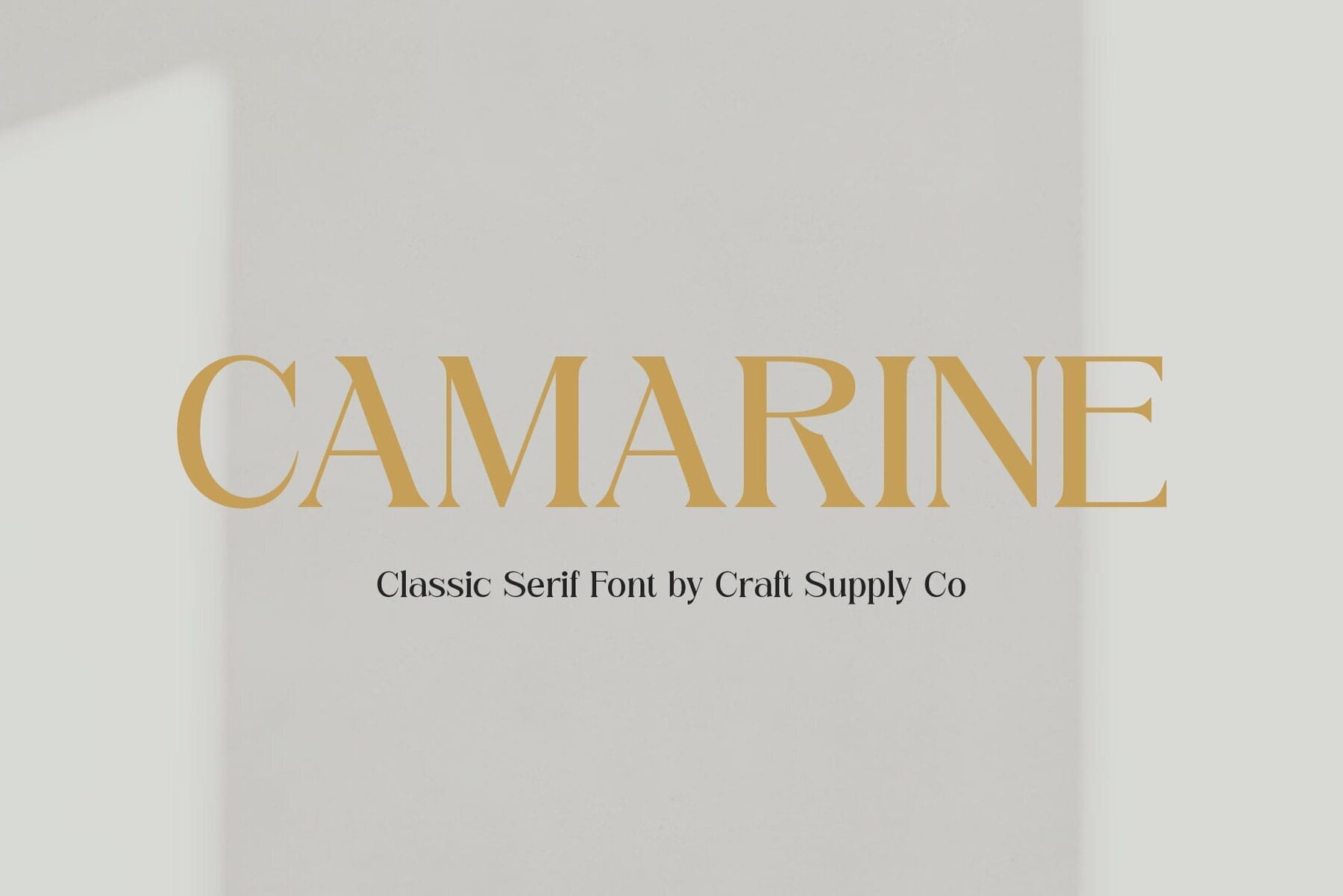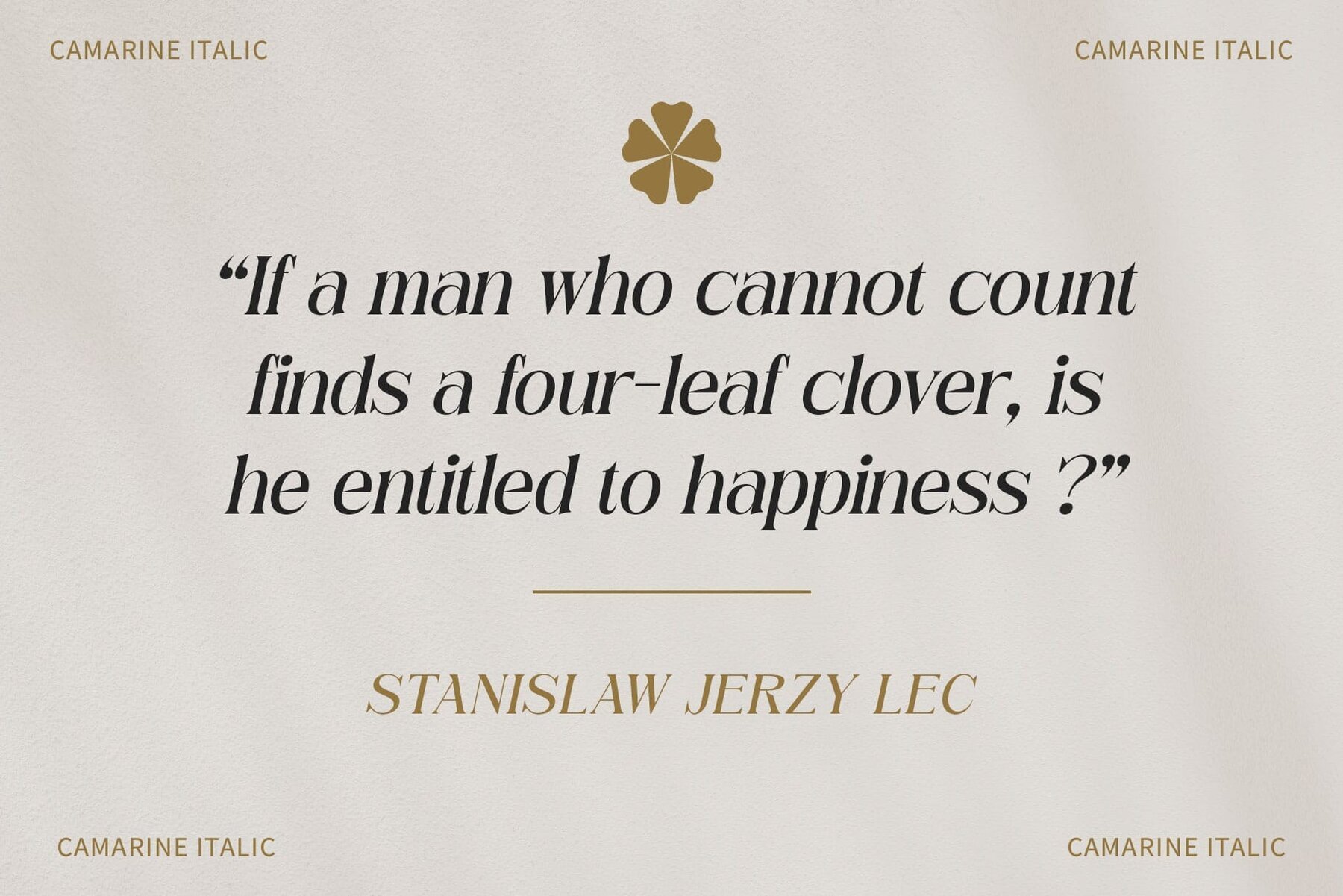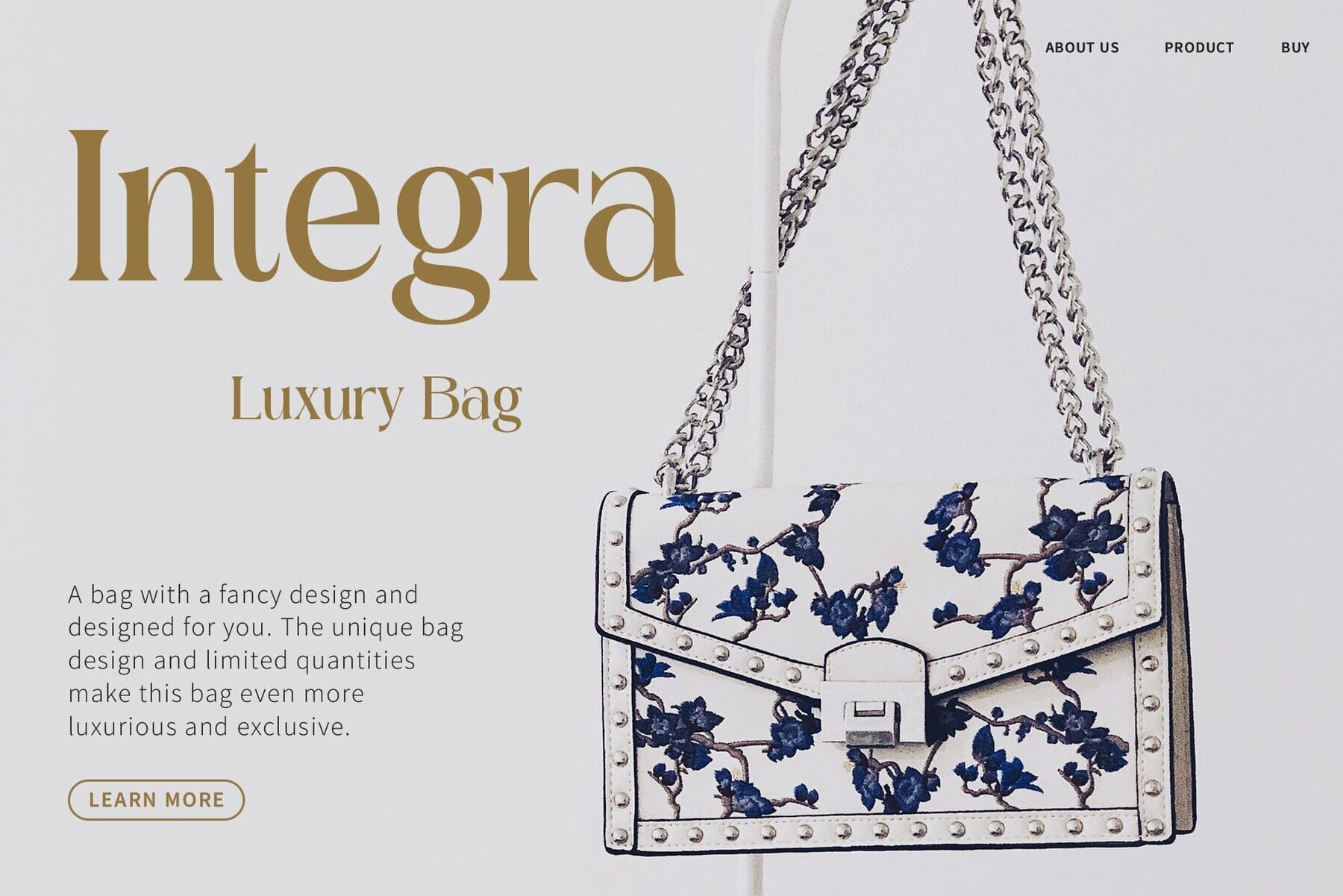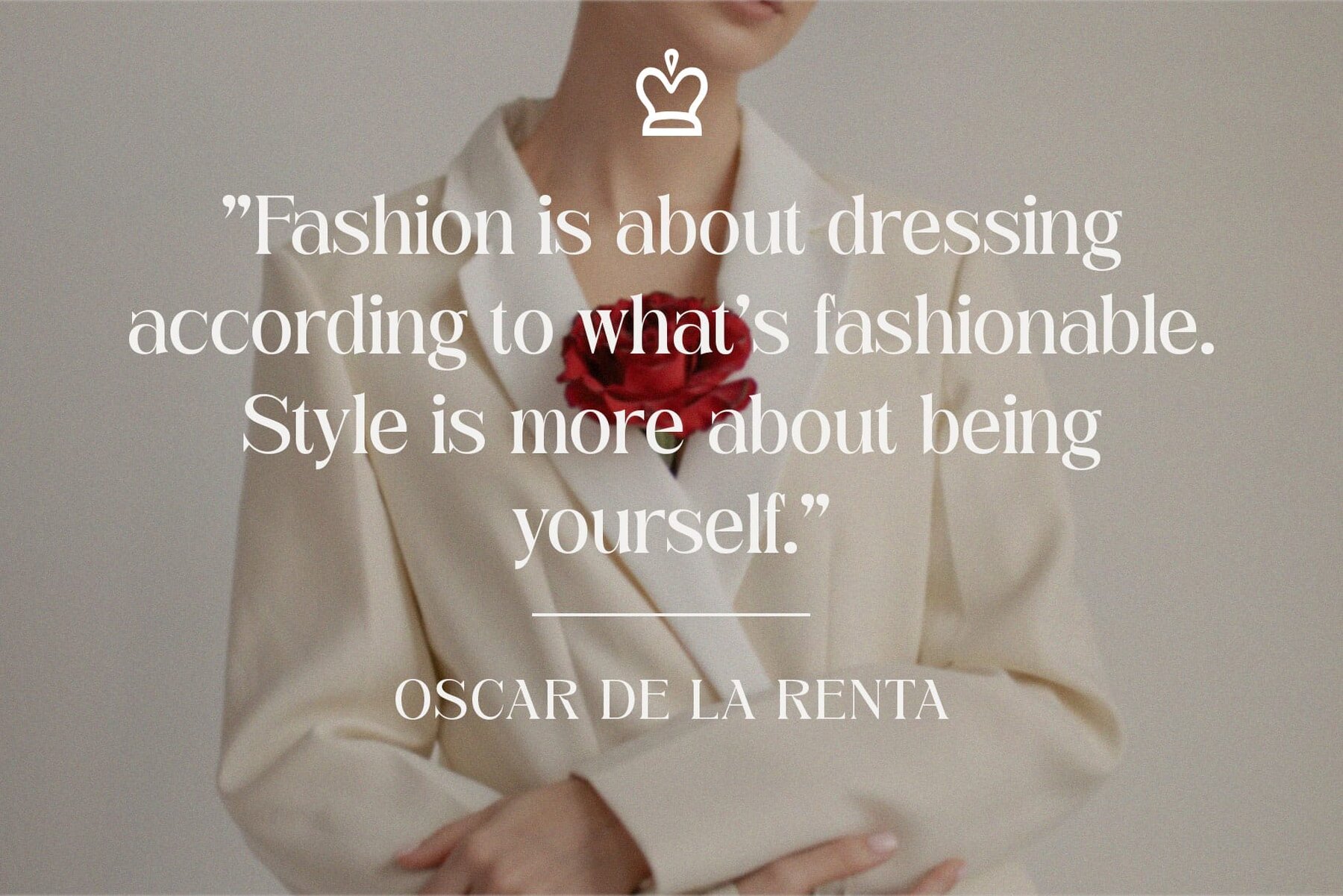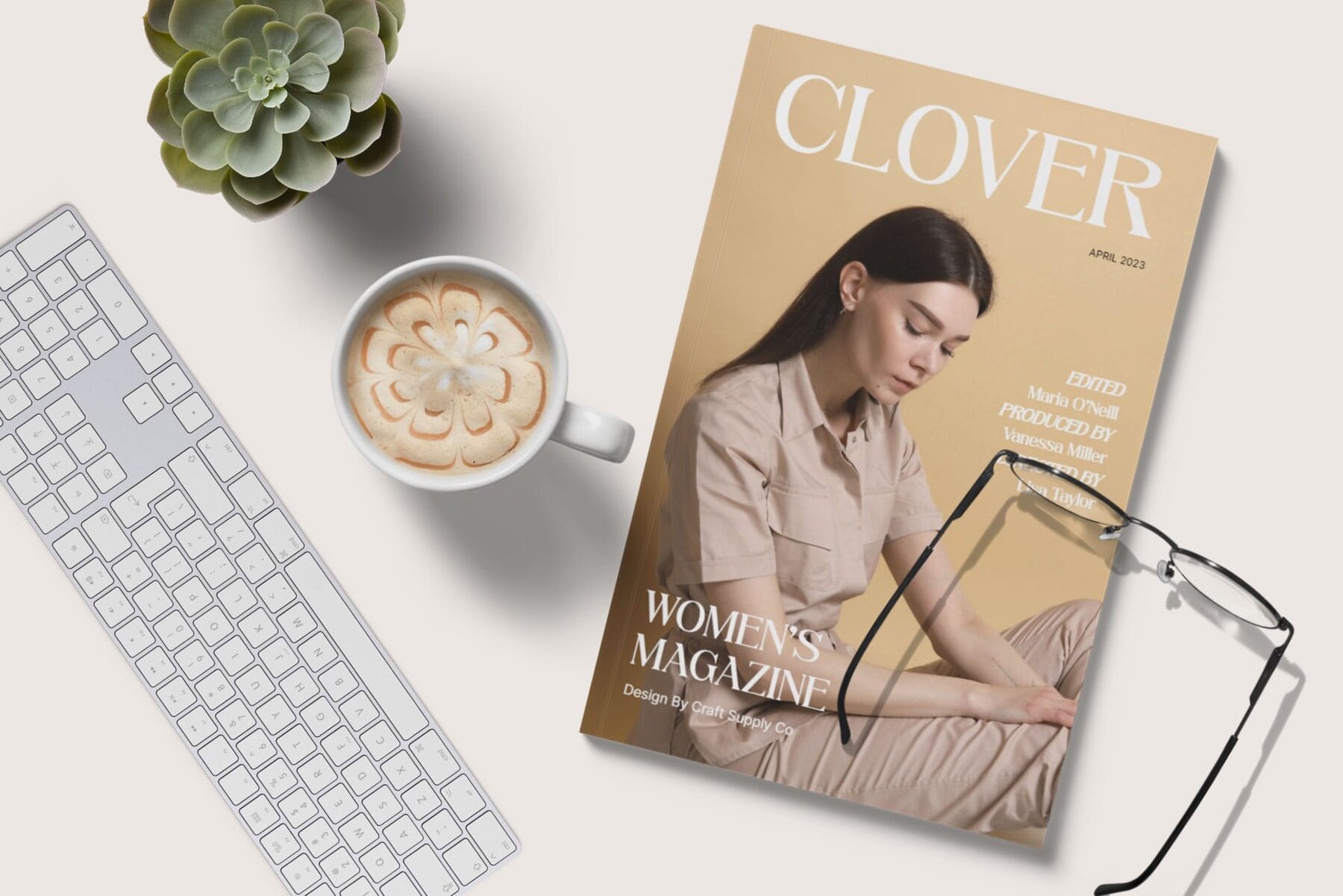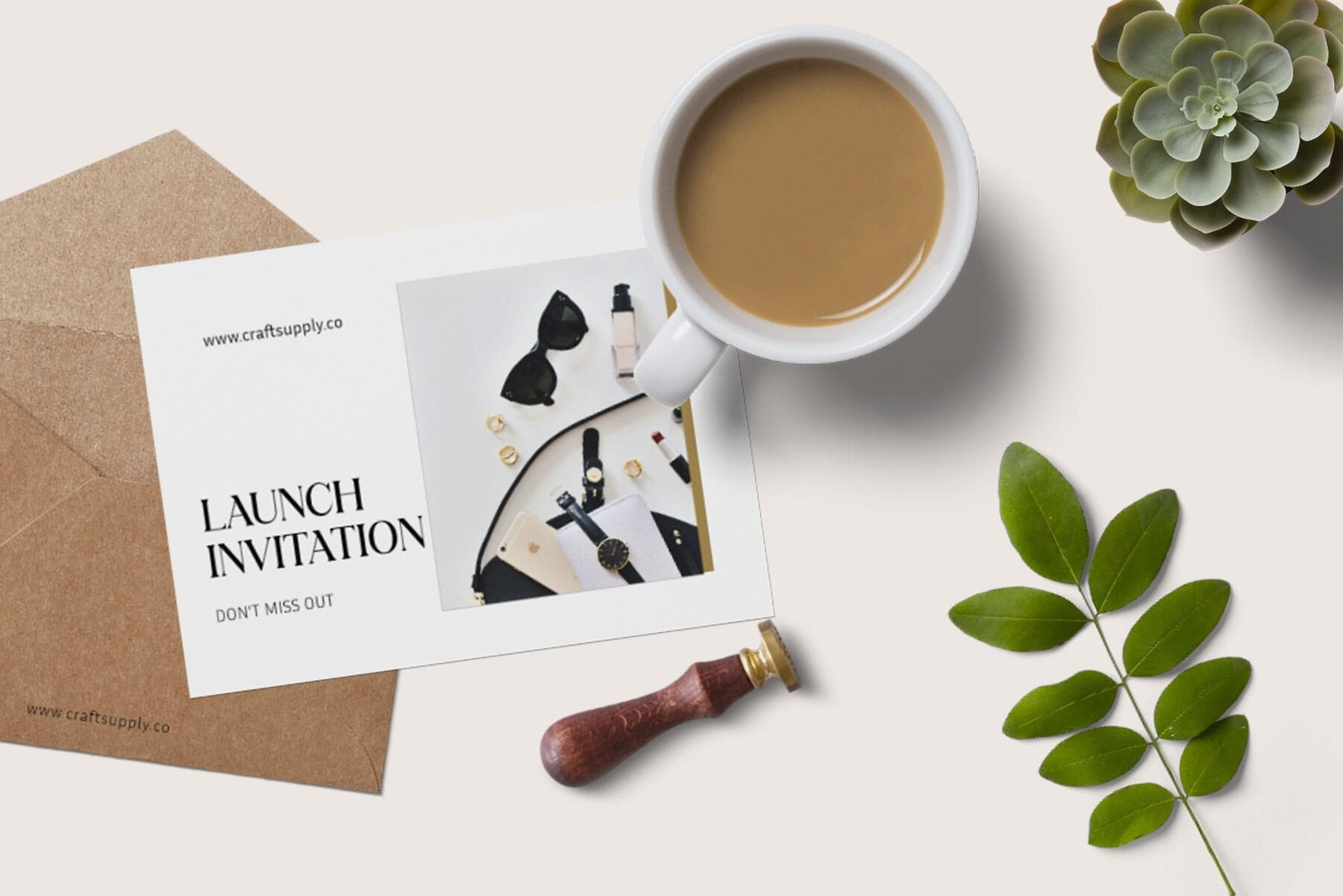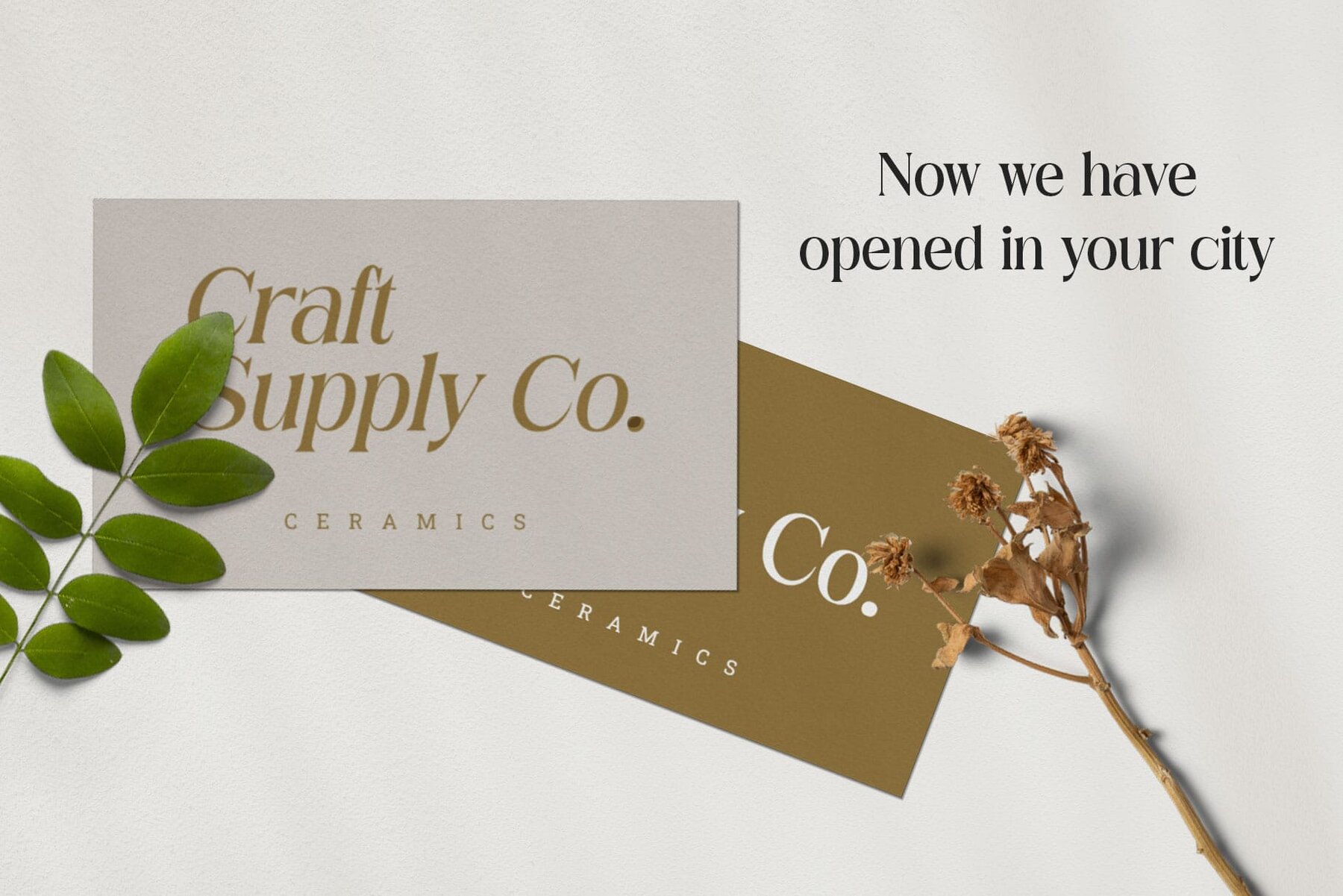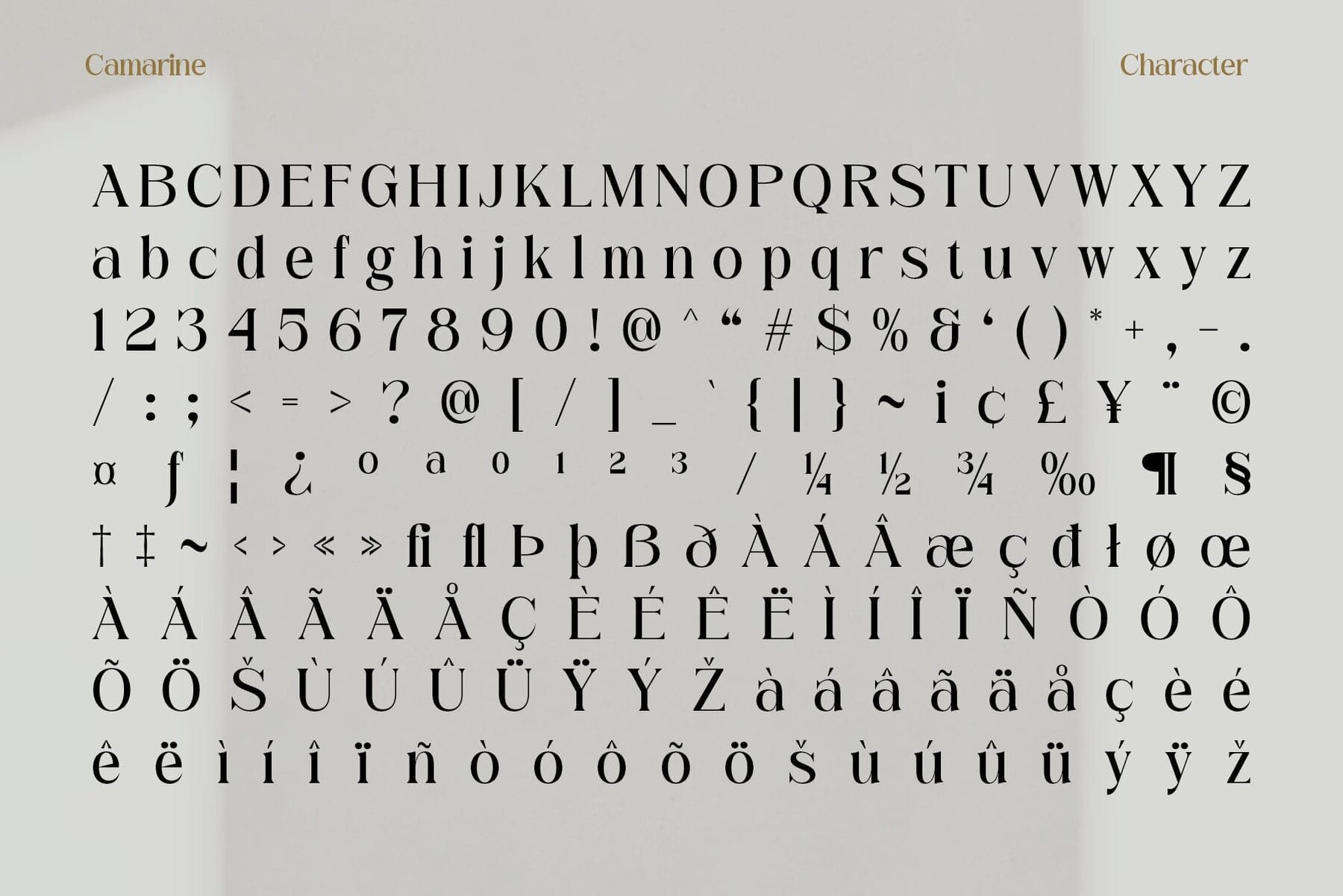
Camarine Font
Camarine, developed by Craft Supply Co., offers a sophisticated serif font inspired by editorial excellence. This typeface brings a modern aesthetic that redefines elegance in typography. Camarine captures the finesse of magazine layouts, bringing sophistication directly to your design projects. Its style reflects the essence of editorial design. With its sleek and stylish presence, Camarine injects a contemporary vibe into any project, making it ideal for modern design needs. Camarine seamlessly blends versatility with sophistication, ensuring timeless qualities that adapt effortlessly to various design contexts. Each character of Camarine speaks to its commitment to modernity, making it an impressive option for designers seeking a contemporary edge. No specialized software is required to use this typeface. If you have any inquiries or require assistance, please feel free to contact us. We appreciate your support in enhancing your creative projects!Camarine Font: Redefining Modern Elegance in Serif Design
Editorial Elegance
Contemporary Allure
Versatile Sophistication
Impressively Modern